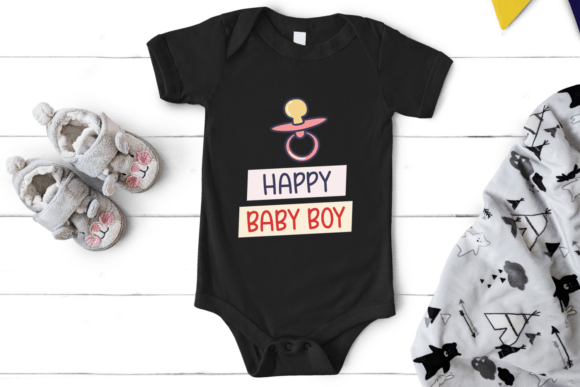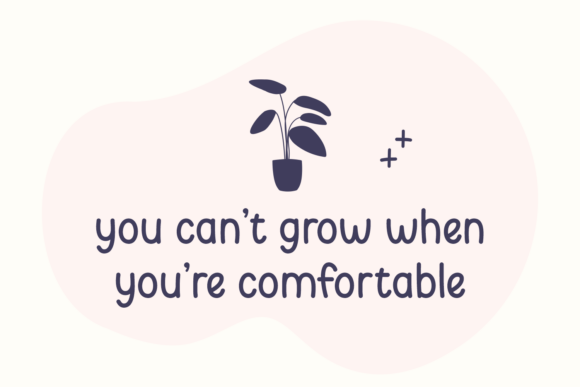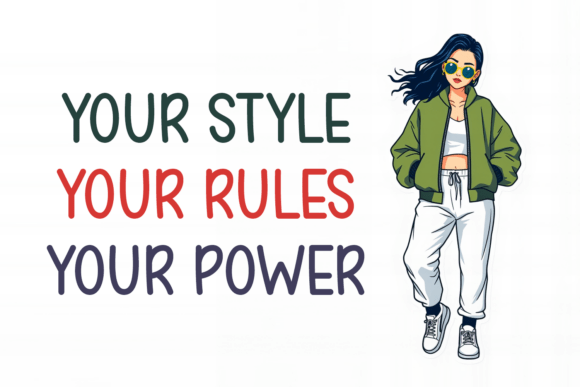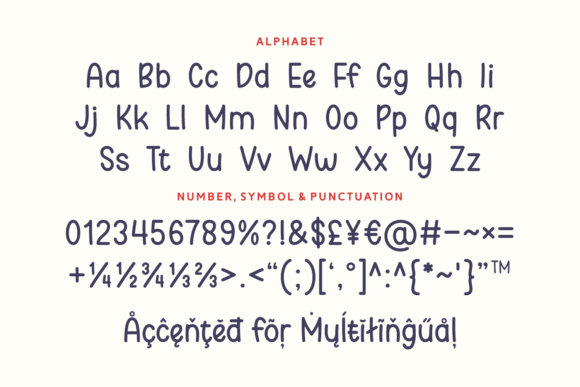
Introduction to Simple Balance Font
Find your creative center with Simple Balance font, a cute handwritten typeface that radiates calm and approachability.
The Simple Balance typeface is designed with smooth, rounded strokes and a gentle, upright posture that feels like a friendly note from a dear friend This versatile Simple Balance font is perfect for clean, minimalist branding, wellness blog graphics, and modern nursery decor where clarity and warmth are key.
Key Features of Simple Balance Font